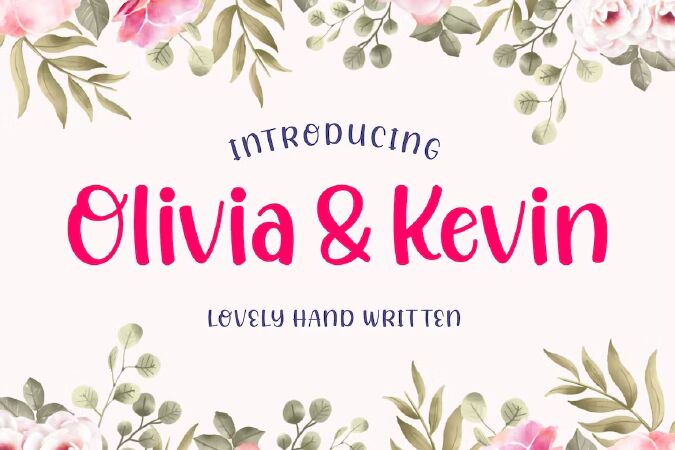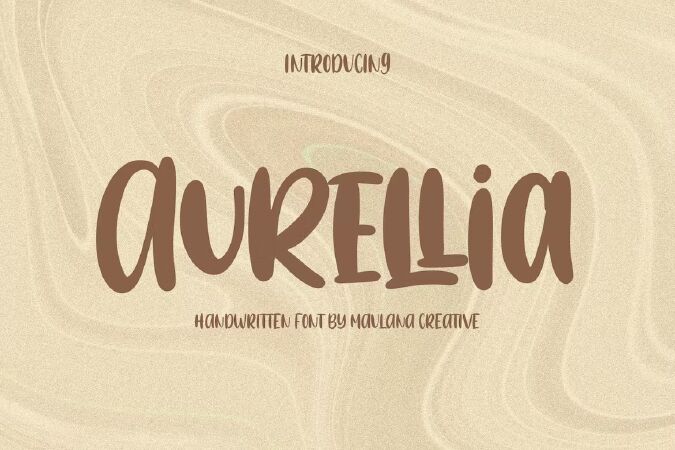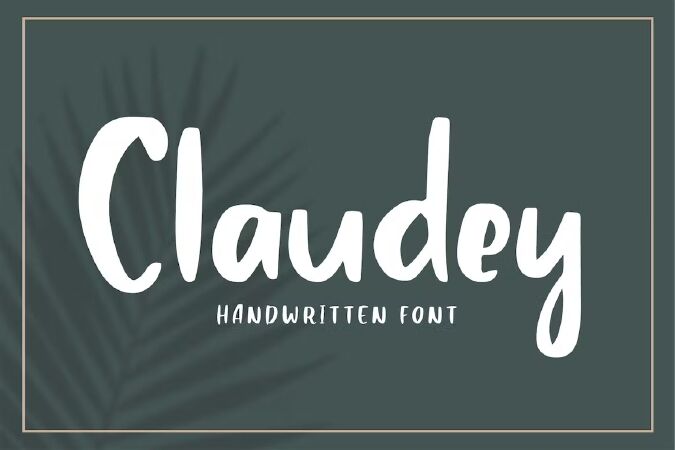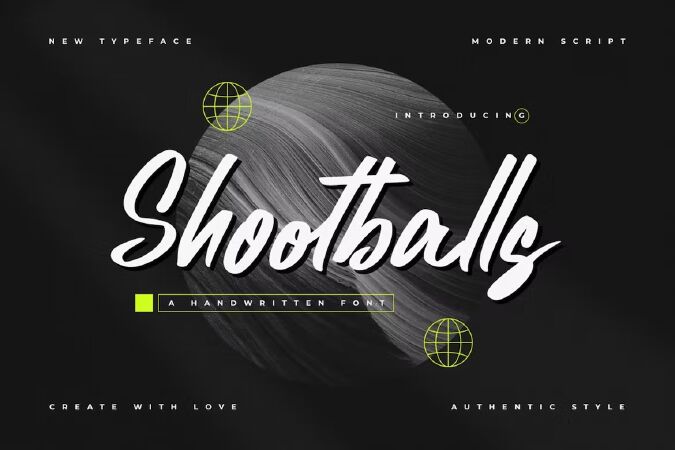
Handwritten font is a set of Vietnameseized fonts specialized for use in graphic designs, invitation card designs, greeting cards or some software applications related to advertising, image editing with the font set. including many diverse and unique Vietnameseized fonts, handwritten fonts are quite helpful for users in their work, bringing many benefits to using fonts. Here are demo images of some beautiful handwritten fonts for you. Readers can also Download all types of Vietnamese handwritten fonts by following the link we just introduced above.
1 Handwritten Font
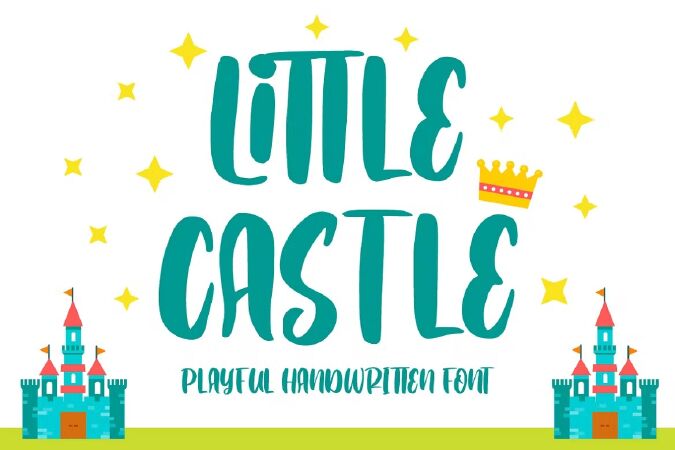
Are you looking for a font that speaks to kids and keeps adults young at heart? A playful and spirited design like this is a great way to grab everyone’s attention!
Introducing Little Castle – A Handwritten Font.
Every detail of this cute font features a cheerful design, making it easy to present your brand, project, or presentation in the best light. It’s awesome for anything kids-related – toys, clothing, packaging, banners, advertisements, and much more.
- Multilingual & Ligature Support
- Full sets of Punctuation and Numerals
2 Daily Spark - Handwritten Font Duo
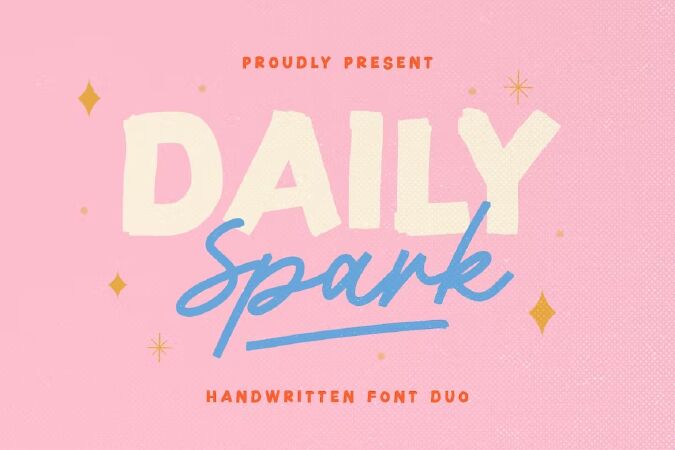
Introducing, Daily Spark, handwritten font duo
Daily Spark is a package of two fonts including Bold Sans and Script that will compliment each other.
You can use this font for any occasions such as a branding, merchandise, etc. With handmade feels, this font is suitable for quote.
For additional, this font also contains underline that you can access from ligature and type underscore + number (1-3) in the middle of the text, for example : Sp_2ark. This font also support multilingual.
3 Sweet Handwritten Font
Wild Grace - Handwritten Font with Ligatures.
4 Pistachio Handwritten Font
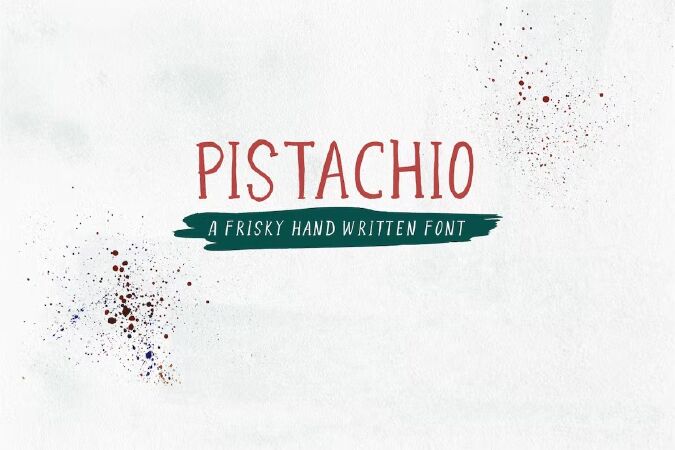
Introducing Pistachio All Caps Font.
This is a frisky fun hand letered font with all caps letters. You can vary upper and lowercase characters to achieve a natural flowing look. Also included a slightly slanted version.
Supporting international languages. Will be great on cards, posters, greeting cards, branding and more :)
5 Wedix - Handwritten Font
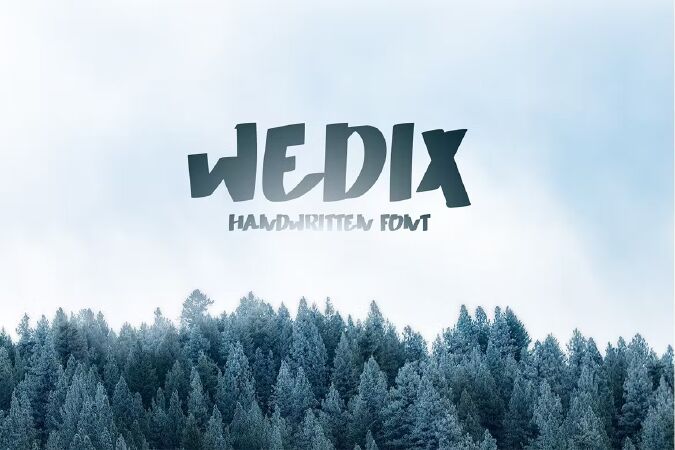
Introducing Wedix, an modern and simple handwritten font. So perfect for you who needs a typeface for logo designs, magazine, social media, brochure, and many more.
6 Hightlight | Handwritten font
Hightlight is a handwritten font with casual chic flair. It is perfect for branding, wedding invites and cards, and maybe for red wine label.
Hightlight includes full set of gorgeous uppercase and lowercase letters, numerals, a large range of punctuation. What you get, darling?
7 Juvenile Handwritten Font
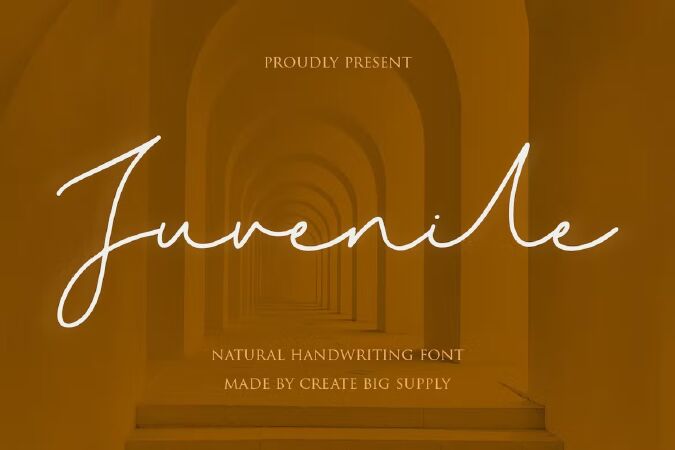
Darling Moods is a sleek and elegant script font. It has a beautiful, natural handwriting style that will leave an authentic impression on your designs!\
8 Kentaki Handwritten Font
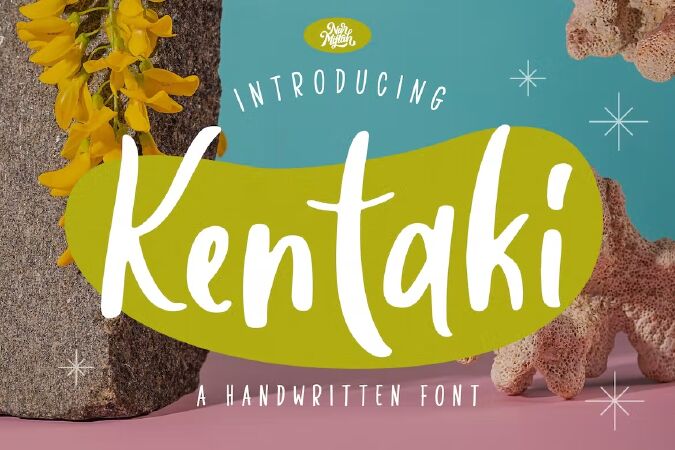
Kentaki Handwritten Font
Kentaki Font can be used for various media like special events, invitation, packaging, poster, wedding, movie titles, book titles, social media, logos, branding, and others.
15 Zoothopia - Handwritten Font
ntroducing Zoothopia. It is perfect for logo/branding projects, large header text and product packaging.
Sign Style Features :
- 90+ Ligatures
- Alternates